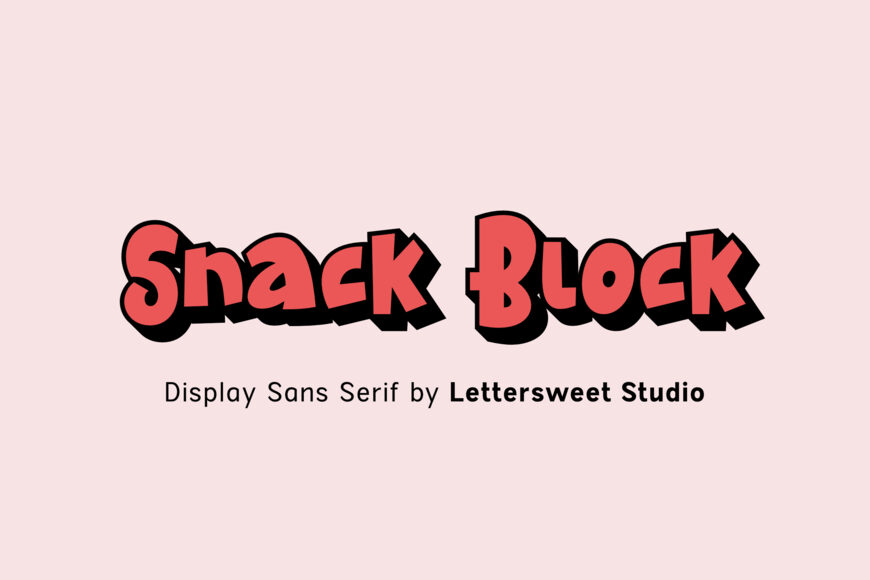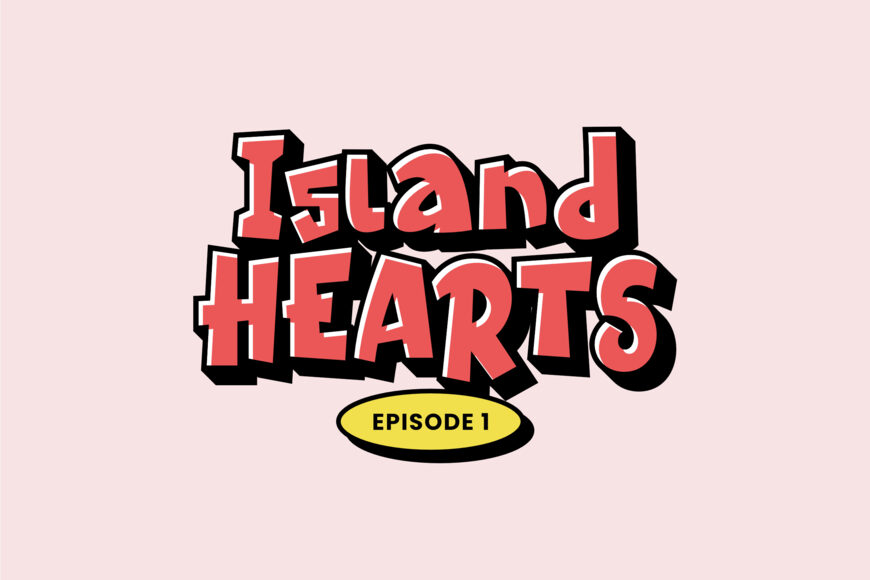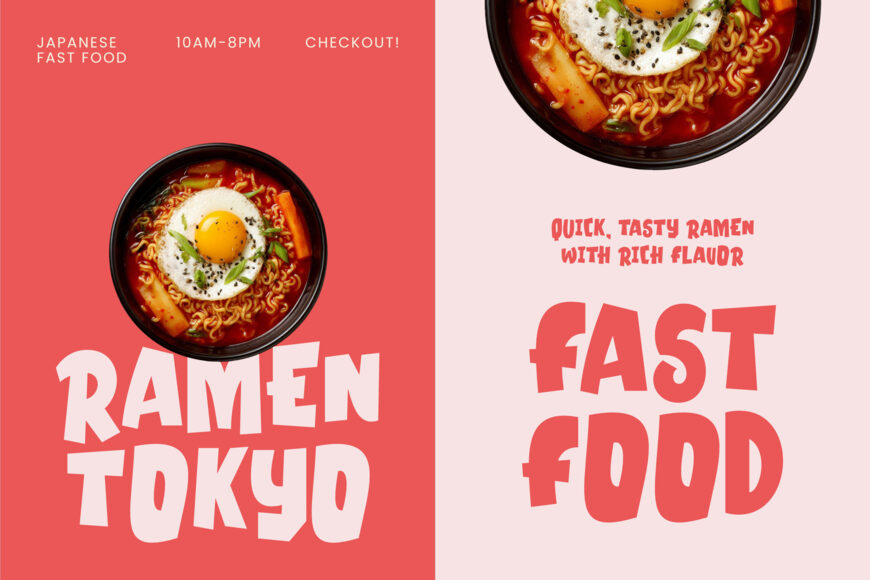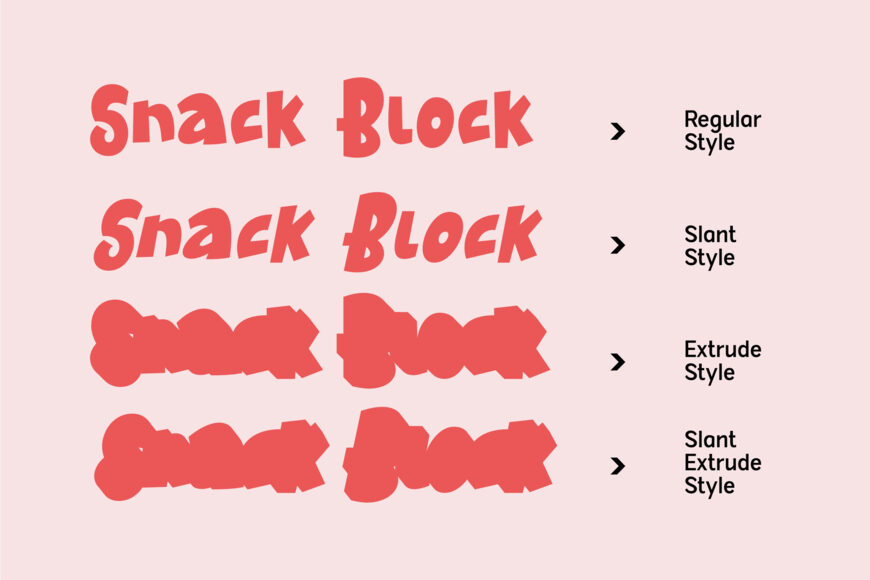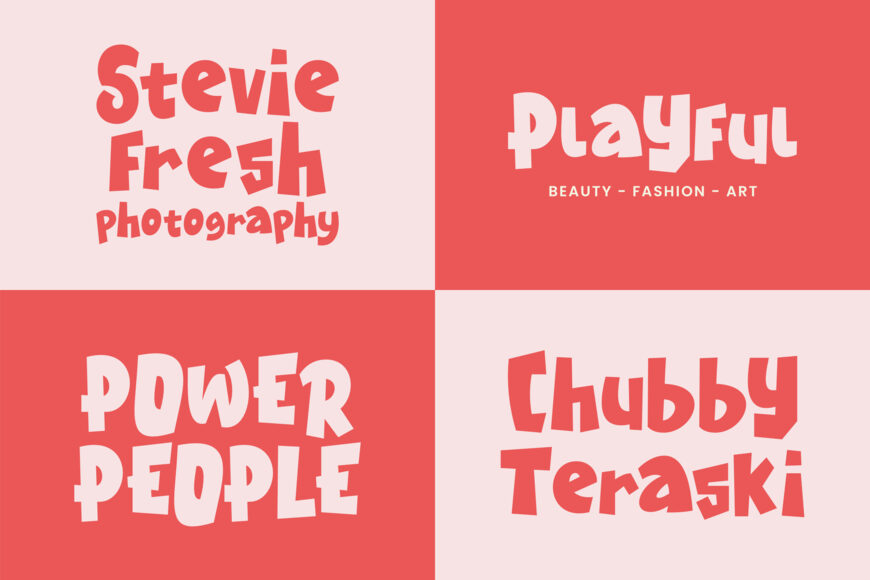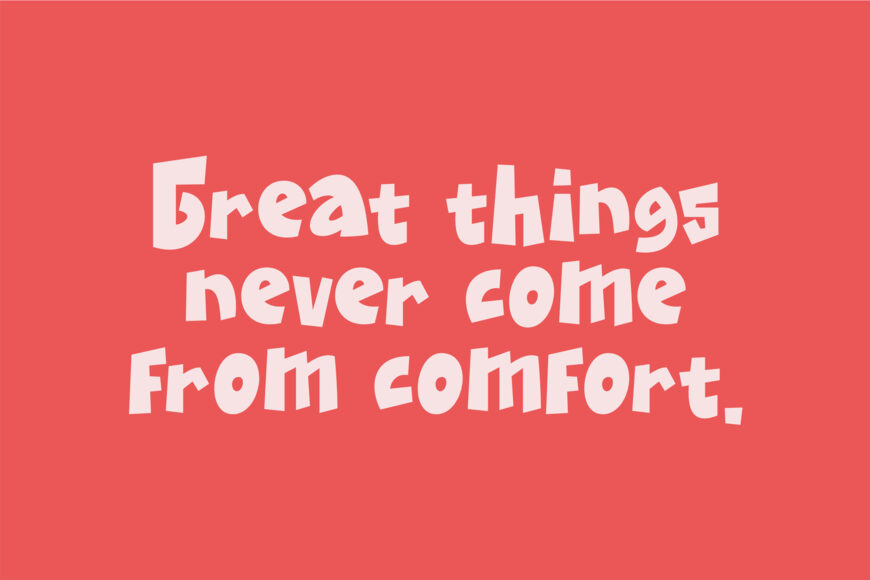
Snack Block is a bold display font featuring a chunky, playful, and energetic personality.  This font is a great choice for logos, branding, posters, headlines, food packaging, snack labels, kids designs, merchandise, T-shirts, stickers, thumbnails, social media graphics, banners, menus, covers, and promotional materials.
Its cheerful personality makes it especially suitable for snack brands, restaurants, cafés, children’s products, creative events, and entertainment-related projects.